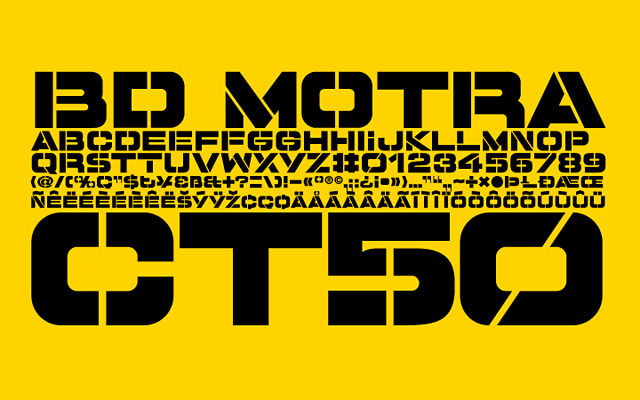
BD Motra Font: A Bold and Industrial Typeface
BD Motra font is a distinctive and eye-catching typeface that has gained popularity among designers and artists. Developed by Lopetz Büro Destruct for typedifferent.com in 2008, BD Motra is a fat extended uppercase font with some variants on the small character keys. The inspiration source for this font is stencil letterings commonly found on vehicles, cargo boxes, and other industrial settings.
Key Features of BD Motra Font
- Fat Extended Uppercase Font: BD Motra is characterized by its bold and extended uppercase letters, making it perfect for creating attention-grabbing headlines and titles.
- Variants on Small Character Keys: The font also features some variants on the small character keys, adding a touch of uniqueness and versatility to its design.
- Industrial Inspiration: The font’s design is inspired by stencil letterings on vehicles, cargo boxes, and other industrial settings, giving it a rugged and industrial look.
Usage and Application of BD Motra Font
BD Motra font is ideal for designs that require a bold and industrial approach. Its usage ranges from big lettering on products, buildings, titles, and anything that needs to make a statement. The font is particularly suitable for:
- Advertising and Marketing: BD Motra font can be used to create eye-catching headlines and titles for advertisements, posters, and marketing materials.
- Branding and Logo Design: The font’s bold and industrial design makes it perfect for creating logos and branding materials for companies that want to convey a strong and rugged image.
- Architecture and Construction: BD Motra font can be used to create signage and titles for buildings, construction projects, and architectural designs.
Design and Development of BD Motra Font
BD Motra font was developed by Lopetz Büro Destruct, a design studio known for its creative and innovative approach to typography. The font was designed with the goal of creating a bold and industrial typeface that would be perfect for designs that require a strong and rugged look.
The design process involved researching and collecting references from stencil letterings on vehicles, cargo boxes, and other industrial settings. The team then used this research to create a font that would capture the essence of these letterings, while also being legible and versatile.
Tips and Resources for Using BD Motra Font
Here are some tips and resources for using BD Motra font effectively:
- Use it sparingly: Due to its bold and industrial design, BD Motra font is best used sparingly to create emphasis and attention.
- Pair it with contrasting fonts: Pair BD Motra font with contrasting fonts to create visual interest and hierarchy.
- Experiment with colors and textures: Experiment with different colors and textures to add depth and dimension to your designs.
BD Motra font is a unique and industrial typeface that is perfect for designs that require a bold and rugged look. Its distinctive design, versatility, and wide range of applications make it a popular choice among designers and artists. By understanding the key features, usage, and application of BD Motra font, designers can effectively use this font to create stunning and attention-grabbing designs.